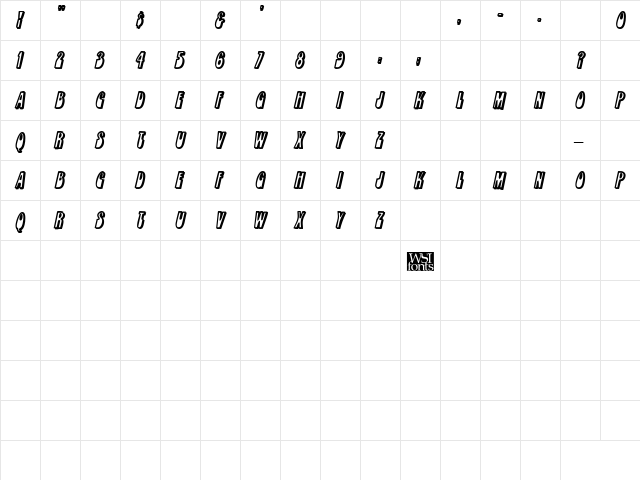
LopplerDisplay Bold Italic
Design Context for LopplerDisplay Typeface
LopplerDisplay brings ornamental detail and strong personality to headlines and identities, where visual impact matters more than quiet functionality. The dynamic lean of this cut emphasises speed and emphasis in any layout. The heavy weight commands attention and anchors typographic hierarchies.
Font Pairing: Pair with a clean neutral sans-serif for body copy to let LopplerDisplay's character lead without overwhelming the composition.
Pro Tip: Use LopplerDisplay exclusively at display sizes — it was designed to be seen, not read at length. Let a neutral companion handle body copy.